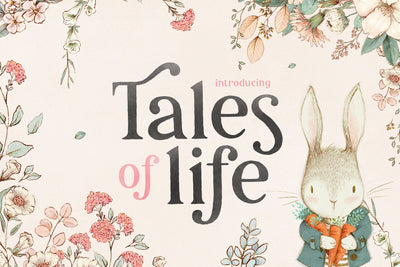
Tales of Life Font Duo (Serif Fonts, Swirly Fonts, Craft Fonts, Cute Fonts)
Looking for Serif Fonts, Swirly Fonts, Craft Fonts, Cute Fonts? Introducing the stunning Tales of Life Serif Font Duo.